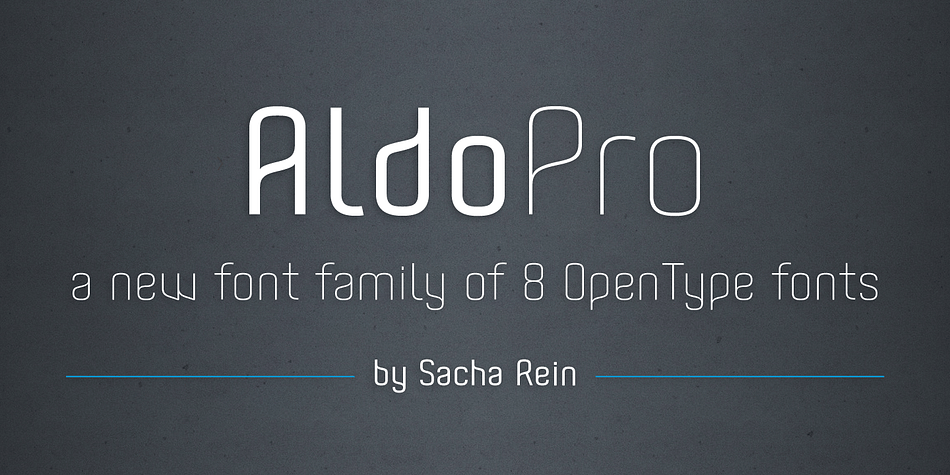
Aldo Pro
Aldo Pro is a display sans font family. This typeface has eight styles and was published by Sacha Rein.
Aldo Pro is a contemporary sans serif OpenType font family designed by Sacha Rein. With 8 weights from hairline to black and an extended latin character set of 690 glyphs it is suitable for all typesetting needs, from advertising and branding to web and screen.